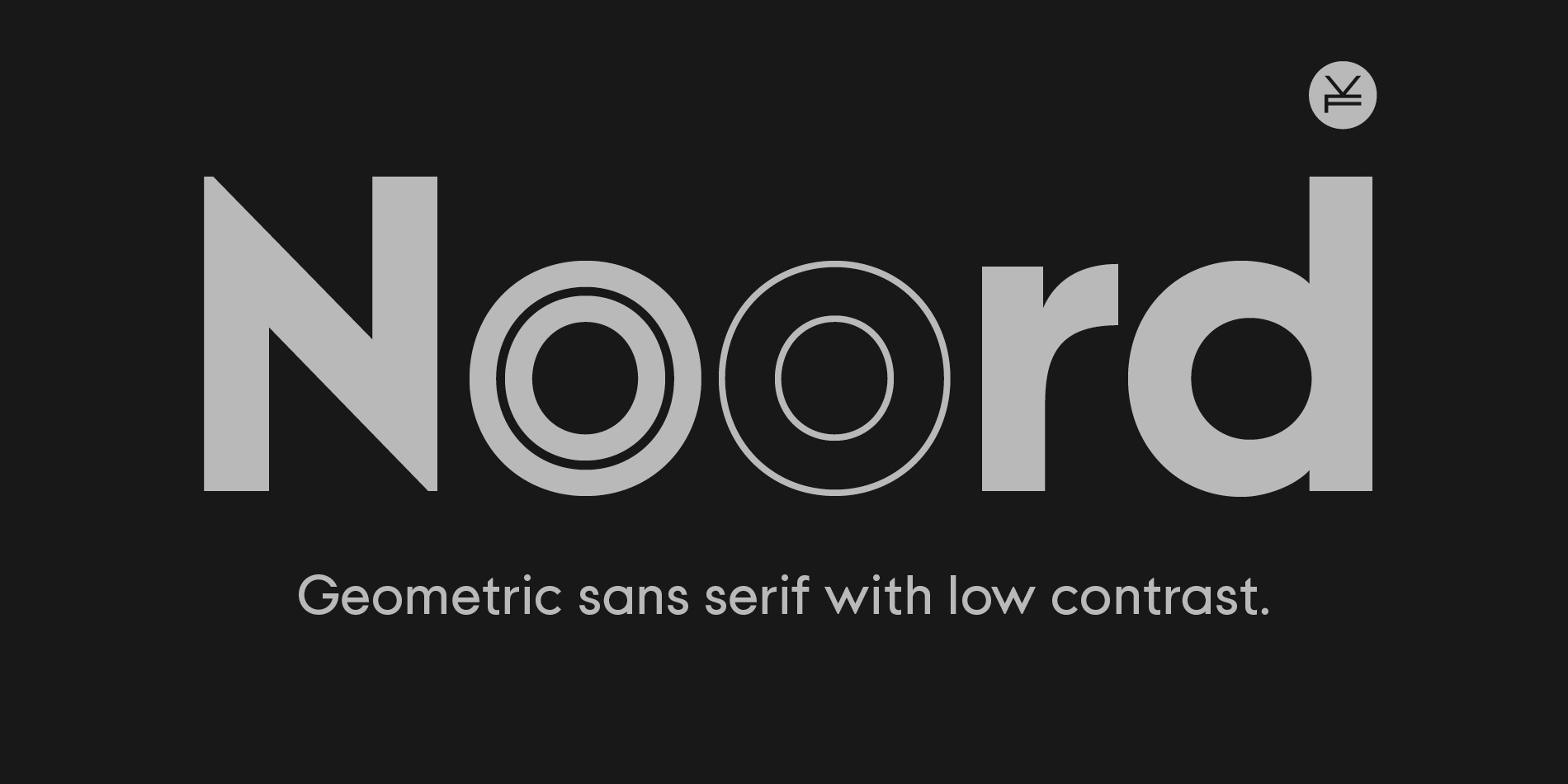
Noord
Designed by Jaakko Vanto, Noord is a sans serif font family. This typeface has eighteen styles and was published by VantoFonts.
Noord is a geometric sans serif typeface inspired by the timeless elegance of 1920s classics like Paul Renner’s Futura. It embraces clean, low-contrast shapes while offering a contemporary edge.
The family includes 8 weights with matching italics, ranging from Thin to Extrabold. To add versatility and a touch of typographic flair, Noord also features Inline and Outline styles.